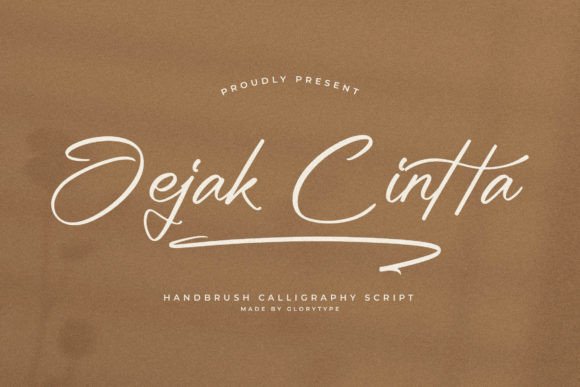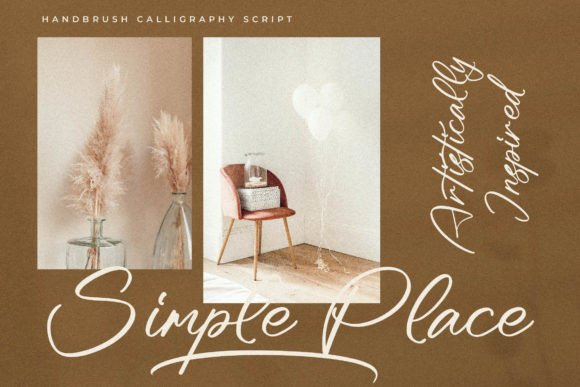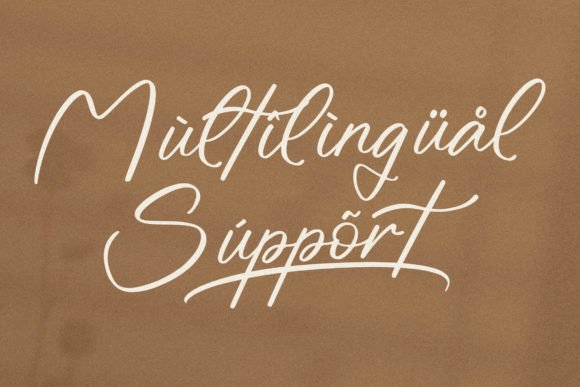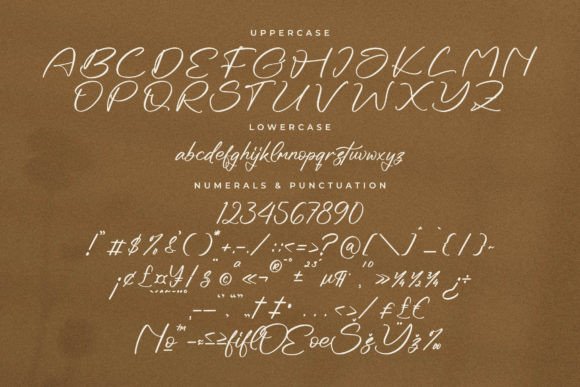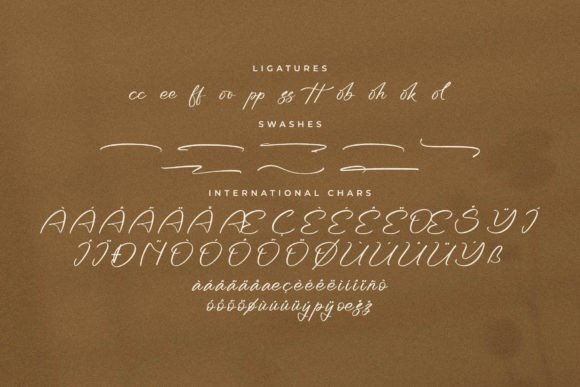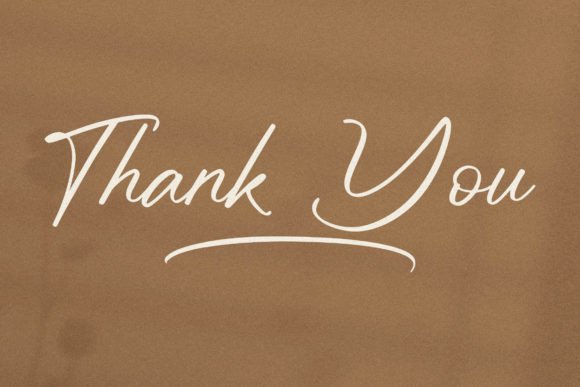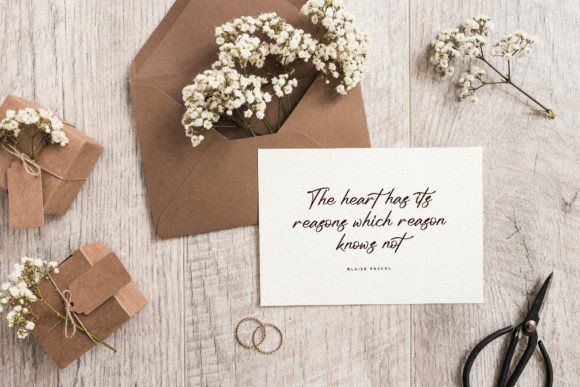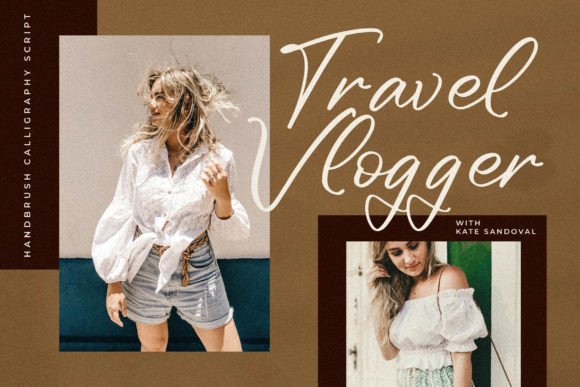
What Is Jejak Cintta Font?
Jejak Cintta is an enchanting handwritten script font designed to bring warmth and romance to your creative projects. Each letter flows gracefully, featuring smooth lines and elegant curves that feel both modern and timeless. Because of its charming style, this font is perfect for any design that needs a personal and heartfelt touch.
You will see how easily Jejak Cintta helps your ideas come alive and look truly memorable.
Jejak Cintta is a highly versatile font you can use in many design contexts. For example, it’s perfect for greeting cards. The romantic script makes any message feel more personal and genuine.
In addition, it works beautifully for headlines and titles. Whether you’re designing a magazine cover, blog banner, or social media graphic, this font adds elegance and style.
You can also use it for wedding invitations and stationery. The flowing letters create a sophisticated, heartfelt impression your guests will love.
When you create product packaging or labels, Jejak Cintta brings a handcrafted, premium look that stands out on the shelf.
Moreover, it’s great for logos, quotes, business cards, and personal projects. Even minimalist layouts feel richer and more inviting with this script.
Why Should You Choose Jejak Cintta Font?
There are many reasons to consider Jejak Cintta for your next project. First, it’s easy to read, even with its delicate curves. Whether you use large headlines or smaller text, every letter remains clear and balanced.
Also, Jejak Cintta pairs perfectly with clean serif or sans-serif fonts. This helps you build professional and cohesive layouts without extra effort.
Because it’s fully PUA encoded, you can access all glyphs, alternates, and swashes without additional software. Customizing your text becomes quick and smooth.
Designers appreciate that it looks polished out of the box, saving time while delivering beautiful results.
Jejak Cintta Font brings romance and authenticity to every project. For example, when you want your designs to feel warm and elegant, this font makes it effortless.
Even simple layouts look more refined with Jejak Cintta’s handwritten style. Whether you create branding, social media posts, or wedding stationery, your work will stand out instantly.
Using a premium script font also shows your dedication to detail and quality. This builds trust with your audience and makes your designs more impactful.
Jejak Cintta Font is more than just a typeface—it’s a creative tool that helps you communicate with clarity and emotion. From greeting cards and logos to packaging and social media graphics, this font adapts beautifully and leaves a lasting impression.